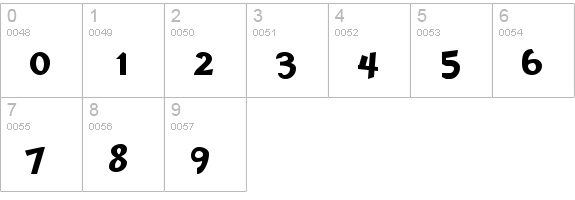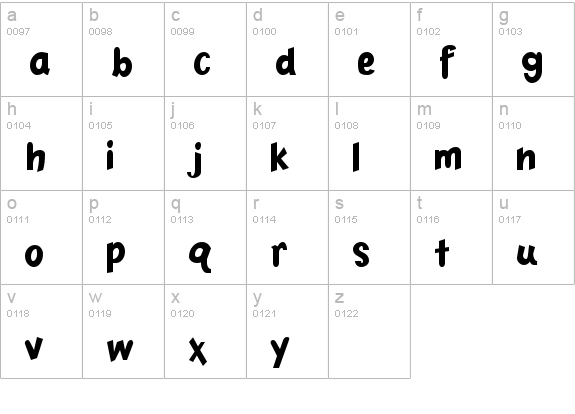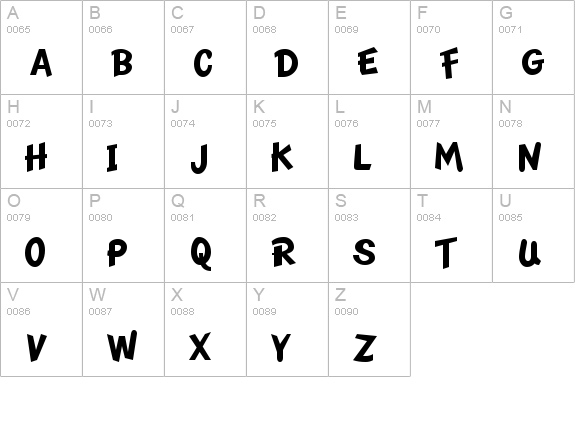
Nu Casual Demo Font Details
Nu Casual Demo font is a stylish and modern typeface that exudes a casual and friendly vibe. With its clean lines and contemporary design, this font is perfect for a wide range of design projects, from branding to social media graphics. The fun and playful aesthetic of Nu Casual Demo font makes it a versatile choice for both personal and commercial use. Best of all, Nu Casual Demo font is completely free to download at FontsMarket.com. This means you can easily add this eye-catching font to your collection without breaking the bank. Whether you're a designer looking to spice up your projects or a business owner in need of a fresh new look, Nu Casual Demo font is the perfect choice. Download it today and start creating stunning designs with ease!